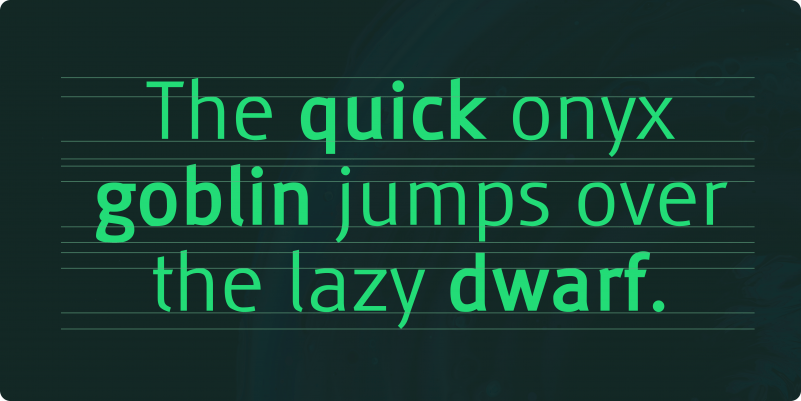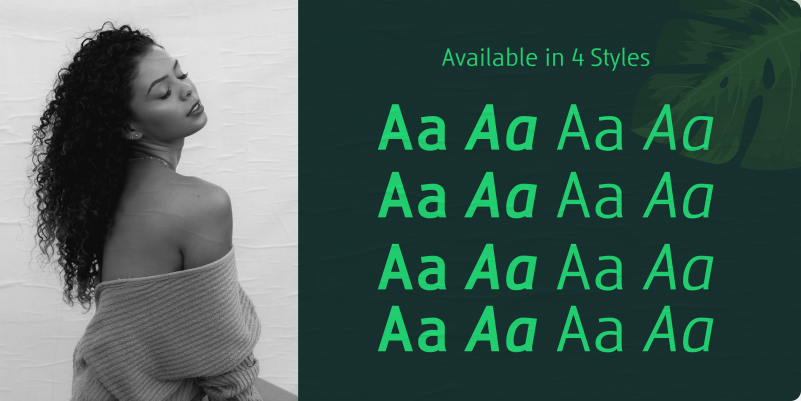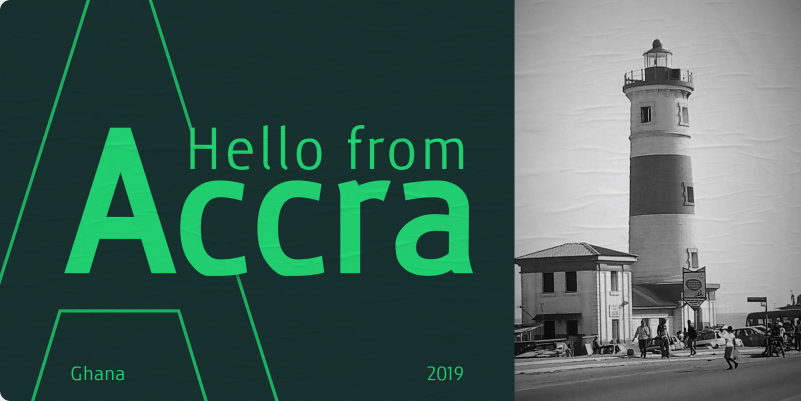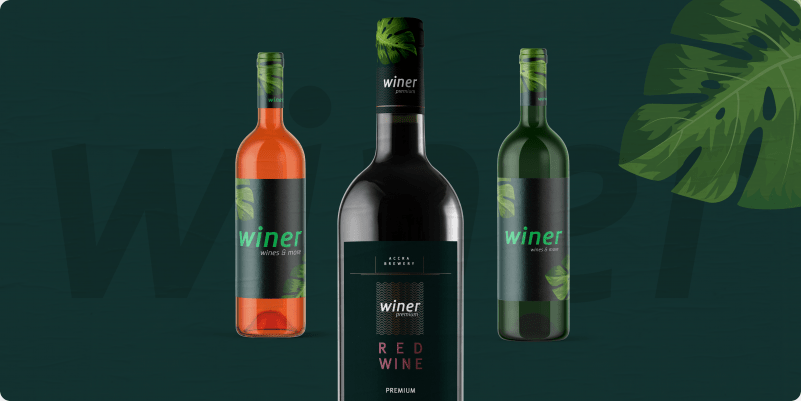
Ankle Sans Font
Ankle Sans Font an elegant sans serif typeface with style. Fashionable, Classy and Modern! Designed and shared by Vikers | RerdSystems. Perfect for Logos , Posters and more.